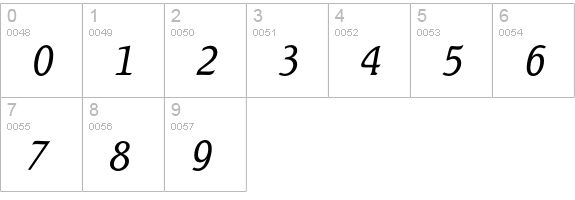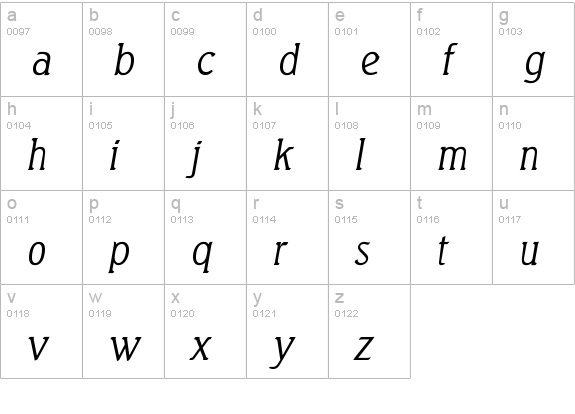
Seagull-LightIta Font Details
Seagull-LightIta font is a captivating and elegant typeface that exudes a sense of sophistication and modernity. Its sleek and slender letterforms are delicately crafted, making it perfect for a wide range of design projects. Whether you're creating a logo, branding materials, or even a stylish website, Seagull-LightIta font will effortlessly elevate your designs to new heights. With its clean and legible appearance, Seagull-LightIta font is highly versatile and can be used across various mediums, both in print and digital formats. Its timeless design allows it to seamlessly blend with any style or theme, making it a go-to choice for designers seeking a font that can adapt to different aesthetics. One of the most appealing aspects of Seagull-LightIta font is that it is freely available to download at FontsMarket.com. This means that you can easily access and utilize this exceptional font without any cost. Whether you're a professional designer or an aspiring creative, the availability of Seagull-LightIta font for free allows you to enhance your projects without breaking the bank. The attention to detail in Seagull-LightIta font is truly remarkable, from the precise curves to the subtle nuances in each character. Its graceful and sophisticated nature adds an air of elegance to any design, instantly captivating the viewer's attention. With its generous x-height and well-balanced proportions, Seagull-LightIta font ensures optimal readability without compromising its artistic appeal. Seagull-LightIta font is a true testament to the power of typography in enhancing visual communication. Its timeless beauty and versatility make it a must-have in any designer's toolkit. Download Seagull-LightIta font for free at FontsMarket.com and unlock the full potential of your creative projects. Let this exquisite font elevate your designs and leave a lasting impression on your audience.